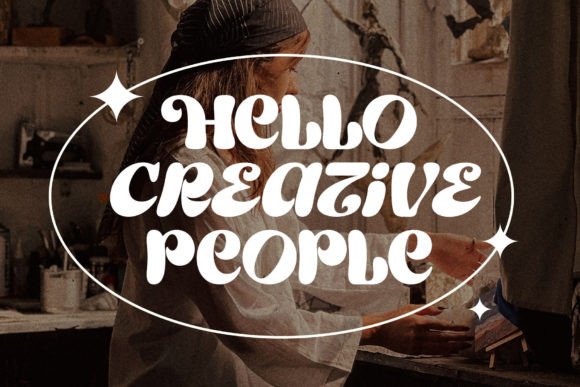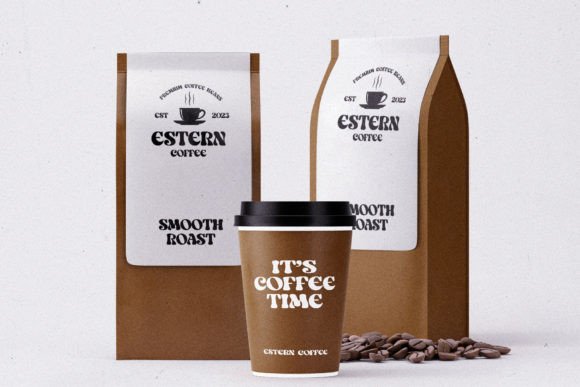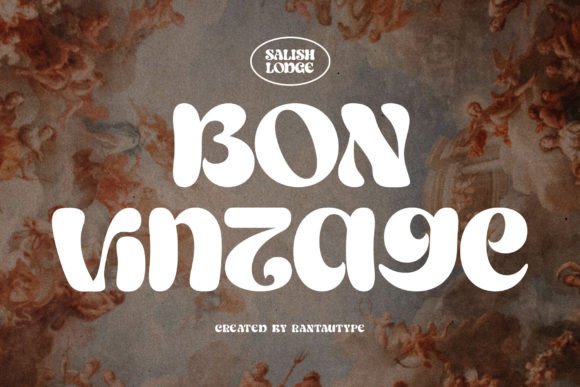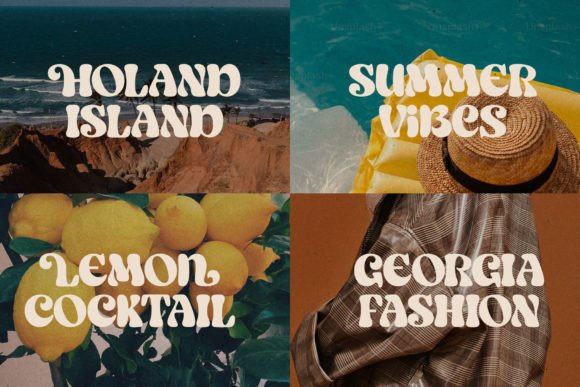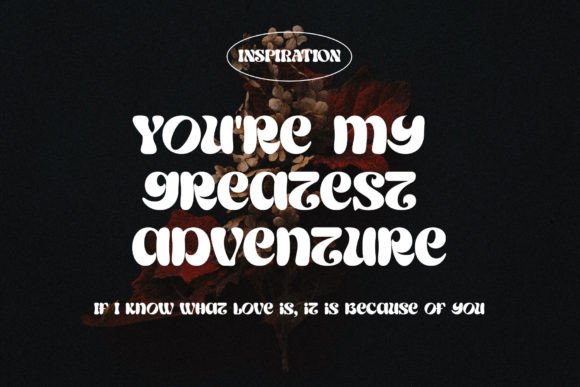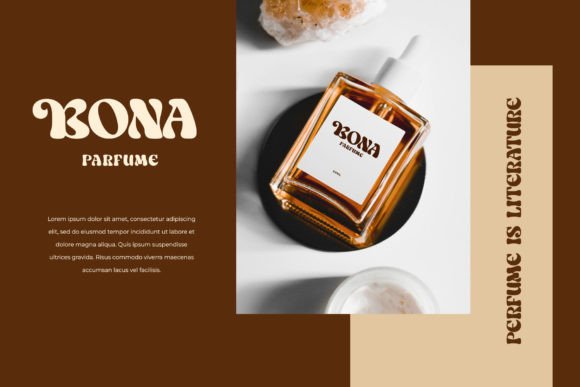
Introduction to Salish Font
Remember that moment when you spent hours pouring your heart into a design project, only to feel like something was missing? The perfect font can be the game-changer you need to elevate your creative vision. Today, we’re excited to introduce you to the Salish Font, a high-quality display typeface designed to make your text stand out with confidence.
Whether you’re working on a free download project or a commercial design, the Salish Font is an invaluable resource for any designer. Its simplicity ensures clarity, while the strong, distinctive characters provide a touch of modern sophistication. With its sleek and professional appearance, the Salish Font commands attention and is perfect for headlines, banners, or any display purpose.
Key Features of Salish Font
- Design resource featuring a unique, modern design with a transparent background, perfect for adding a touch of elegance to any project.
- Comes in a single weight, making it easy to use in a variety of design applications, from logos to typography-based projects.
- Designed to be highly legible, with clear lines and a clean, modern aesthetic, making it perfect for use in digital and print projects.
Honest Review: Salish Font
I recently had the chance to work with the Salish Font, a high quality design resource that offers a free download. From my experience, I found it to be a great addition to my creative project.
What works well: ✨ The Salish Font comes with a transparent background, making it easy to use in a variety of design contexts. The font is also highly customizable, allowing for a range of styles and effects to be achieved. The high level of detail in the font’s design makes it perfect for use in headings and titles.
Overall, I was impressed with the Salish Font and would recommend it to designers looking for a high quality, free design resource. With its transparent background and customizable design, it’s a great addition to any creative project.
- Perfect for headings and titles
Tips for Getting the Most Out of Salish Font
When using the Salish Font, remember to experiment with different font sizes and styles to achieve the desired look. You can also combine the Salish Font with other design elements, such as images and graphics, to create a visually appealing design. Additionally, be sure to check the licensing terms for the font to ensure you are using it correctly.
The Salish Font is perfect for a variety of creative projects, including graphic design, digital art, and print design. It’s also great for use in social media graphics, logos, and branding materials. With its high quality and transparent background features, the Salish Font is a valuable design resource that can help take your creative project to the next level.